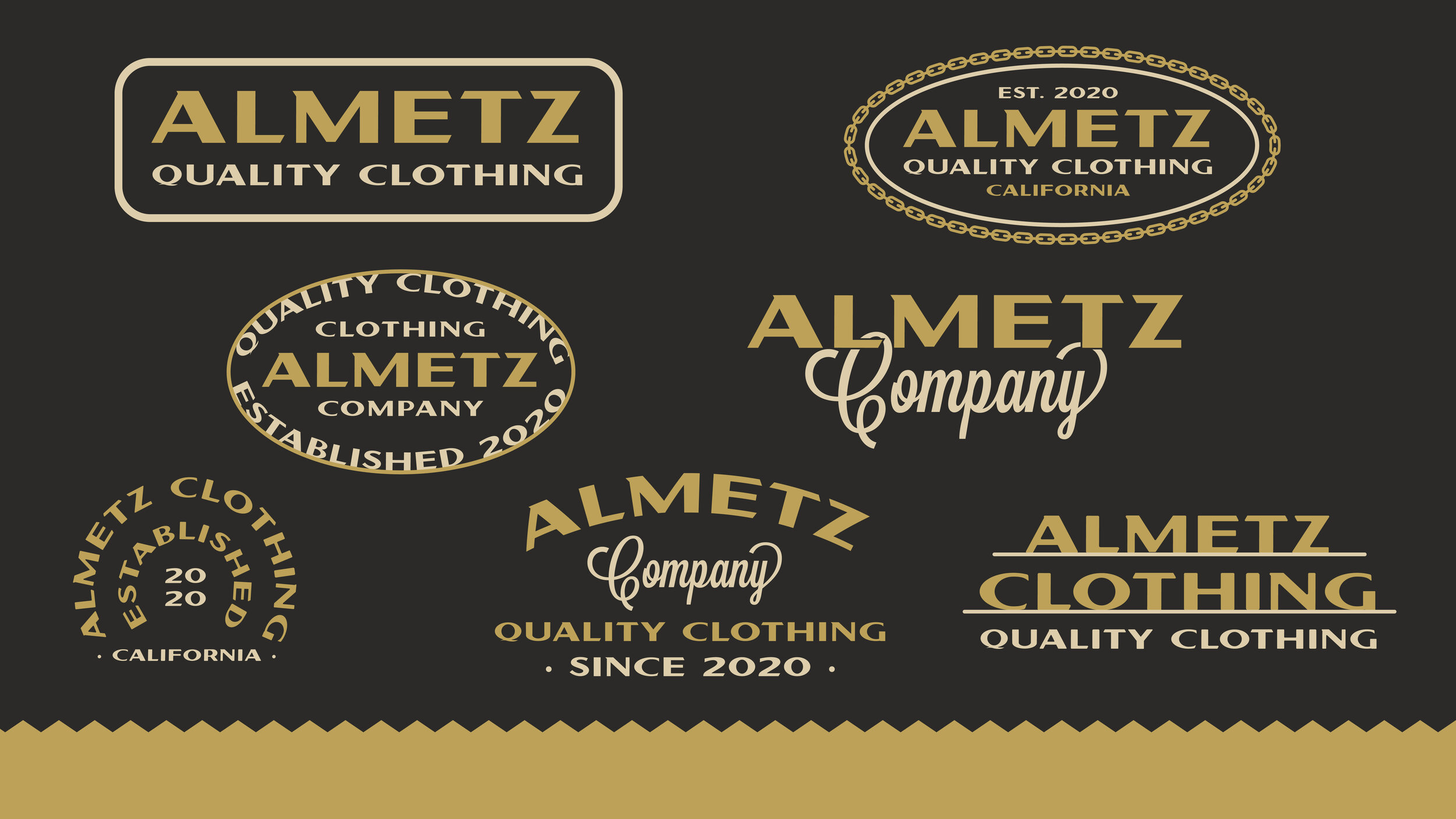
Almetz Typeface
The Almetz typeface is a vintage 1950’s inspired font perfect for a variety of applications. Complete with:
• 4 font styles
• 1 chain brush
• 6 fully editable badges